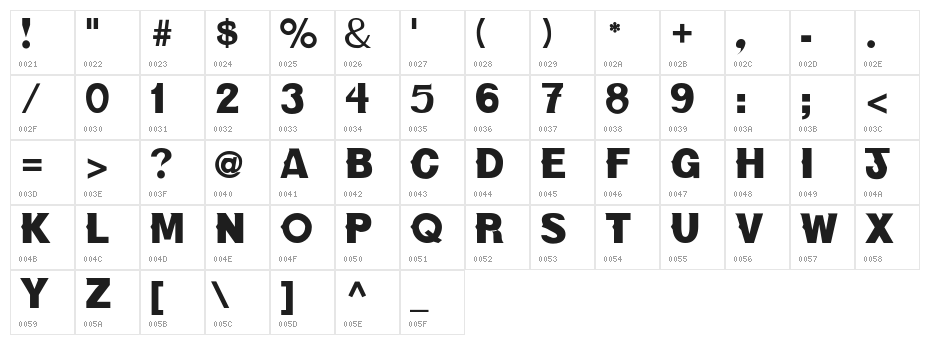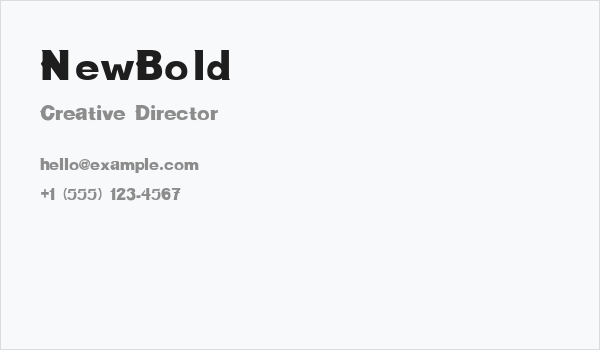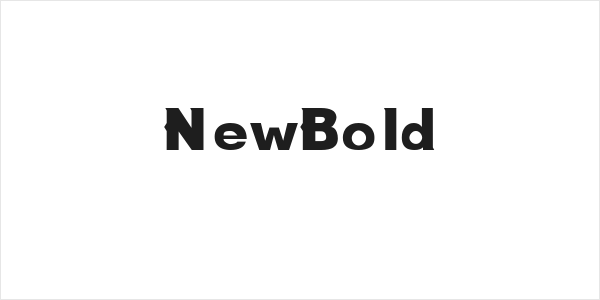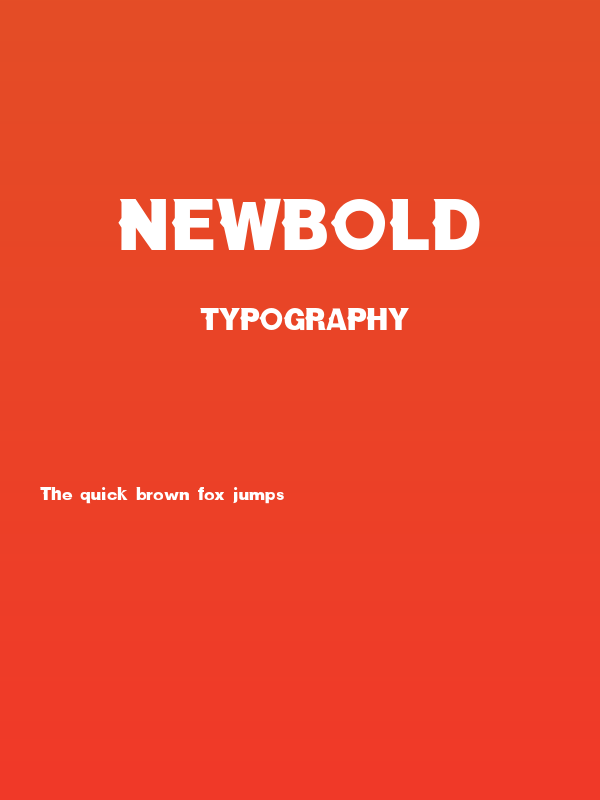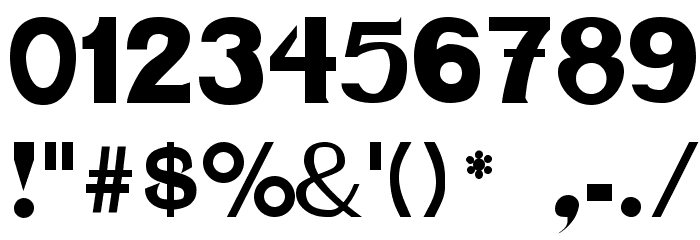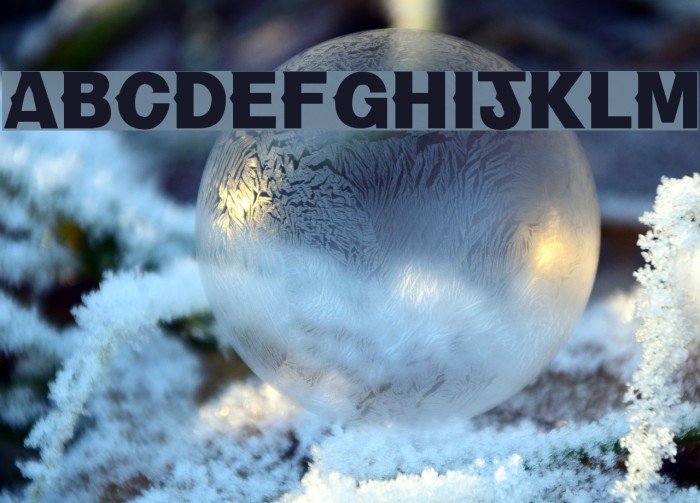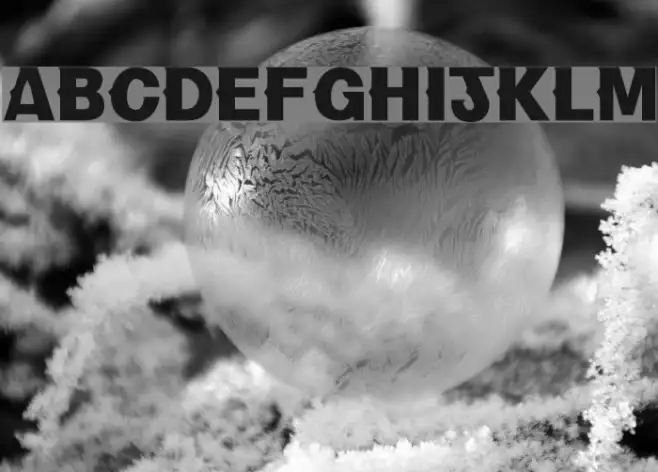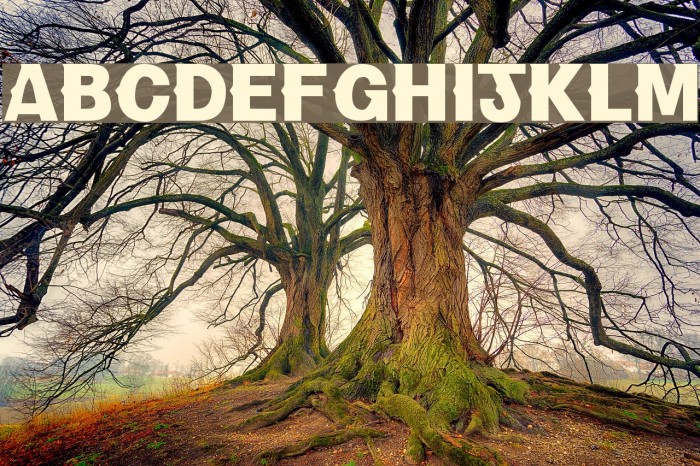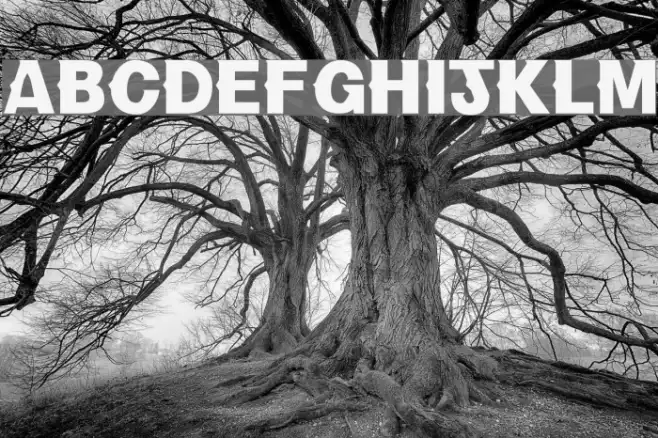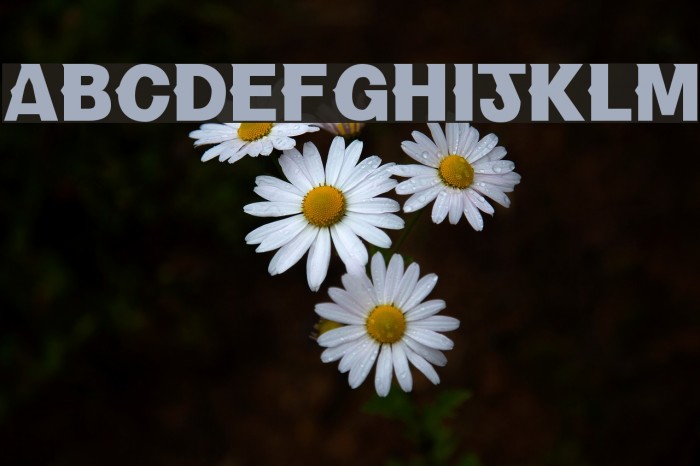
NewBold Font
NewBold Description
This font features bold, strong characters with a modern and impactful design. The uppercase and lowercase letters are well-proportioned, with a consistent stroke width that conveys a sense of stability and confidence. The numerals are clear and easy to read, making them suitable for various applications. The special characters are designed to complement the overall style, maintaining the bold and assertive look. This font is versatile, suitable for both digital and print media, and can be used to create a strong visual presence.
| Proposed Projects | Ideal for branding, headlines, posters, and advertising materials. |